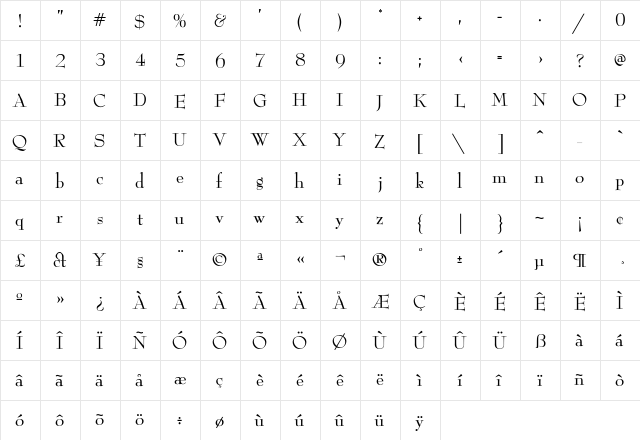
Reed-Normal Regular Font Preview
Reed-Normal Regular
Design Context for Reed-Normal Typeface
Reed-Normal offers clean, dependable letterforms without strong stylistic allegiance, making it a practical choice for designers who need flexibility.